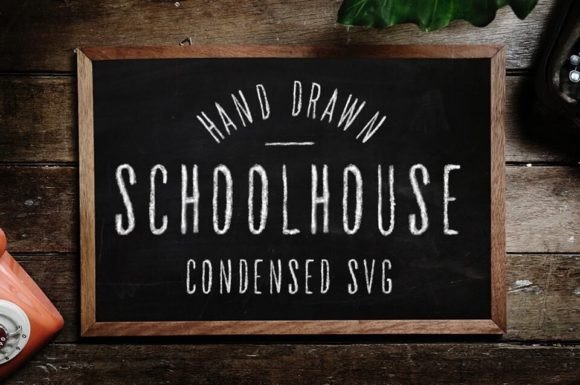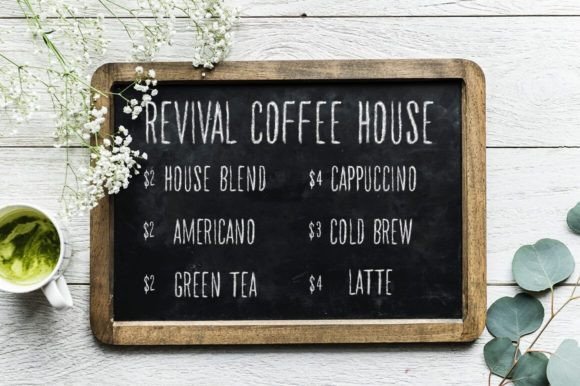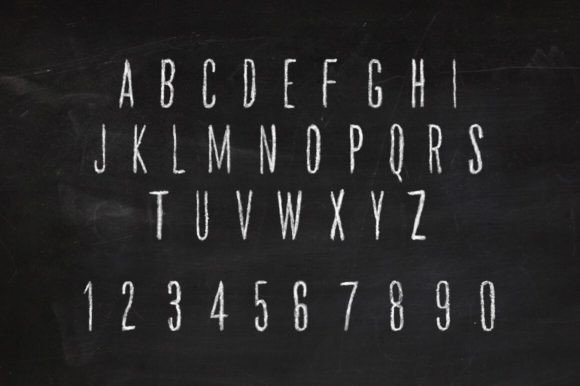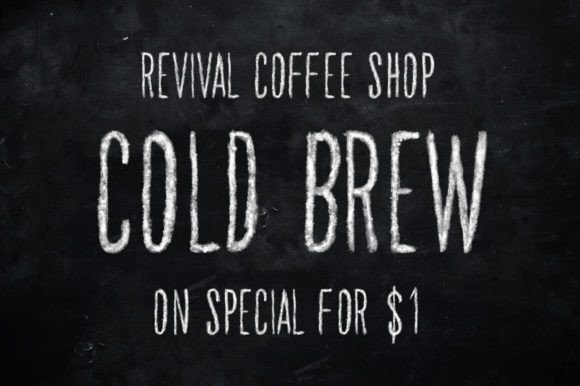
Schoolhouse Font
About the Schoolhouse Font
Introducing the Schoolhouse Font, a beautifully crafted typeface designed to elevate your creative projects. Schoolhouse SVG is a hand drawn all caps font that was designed to mimic chalkboard lettering often seen on restaurant & cafe menu boards. The font features 2 sets of capitals to provide a more natural hand written look.